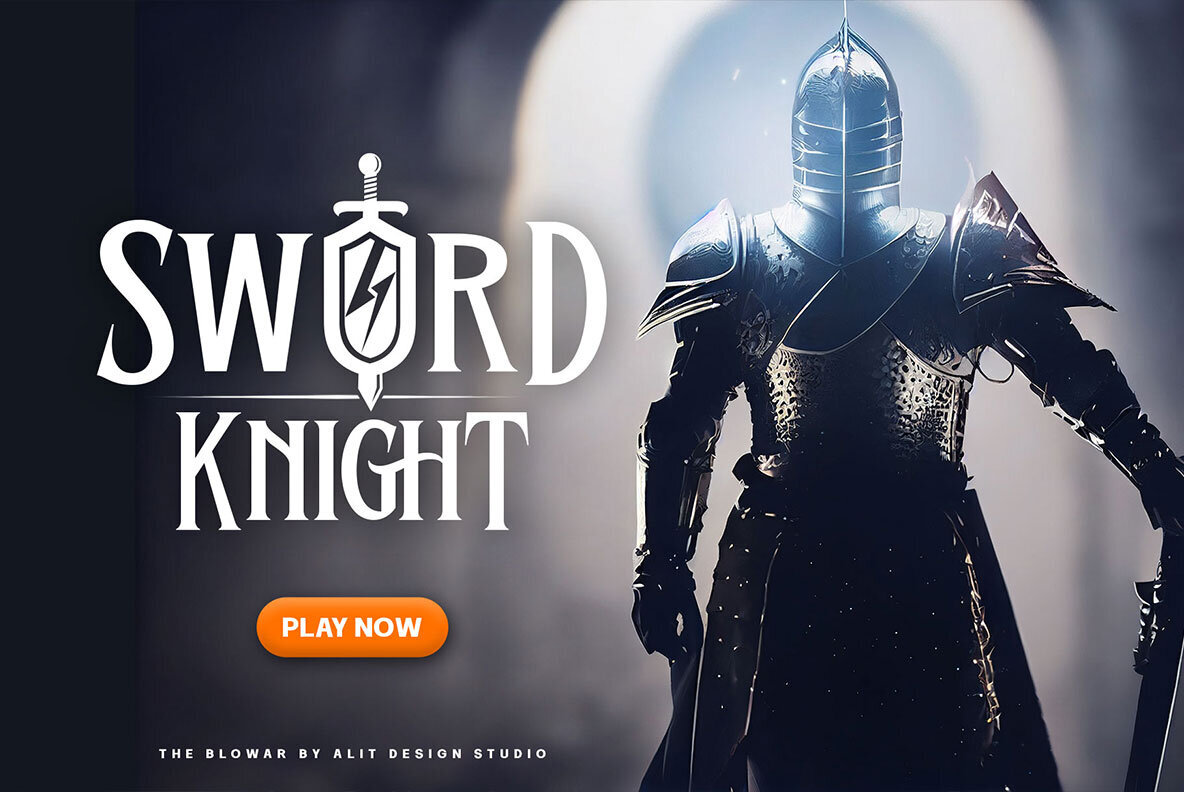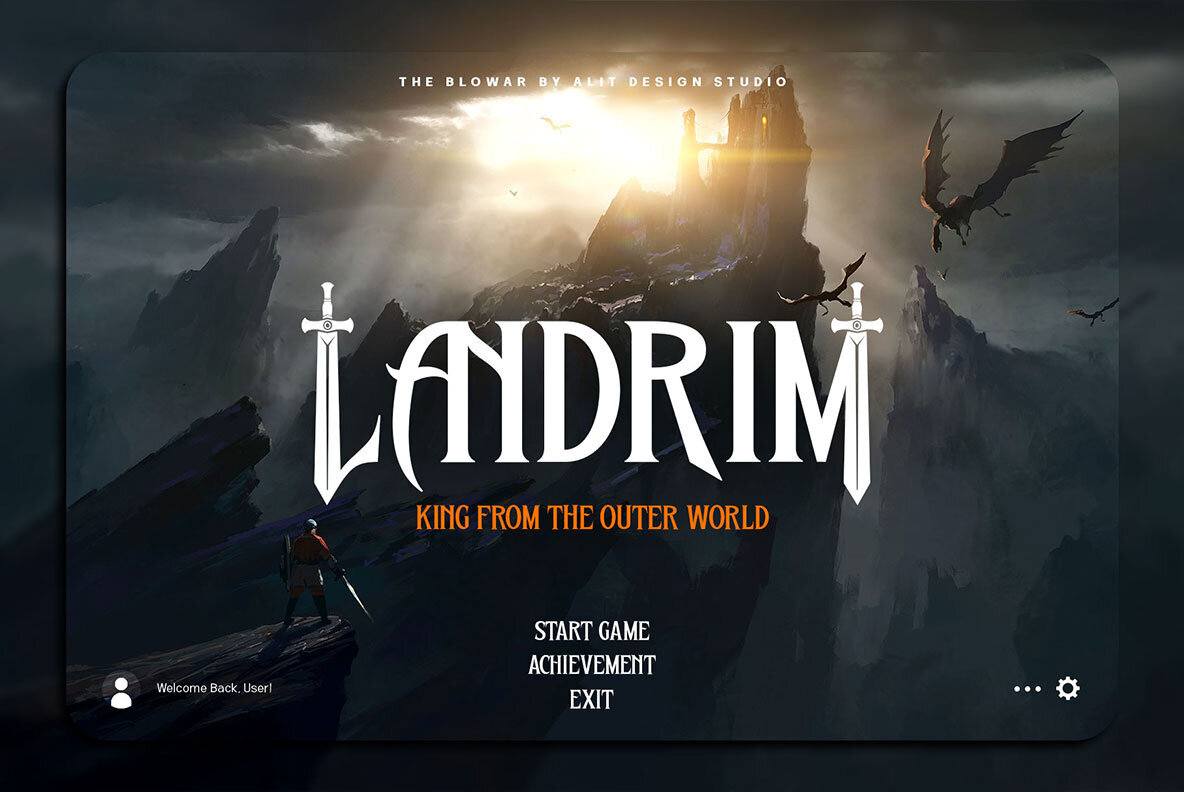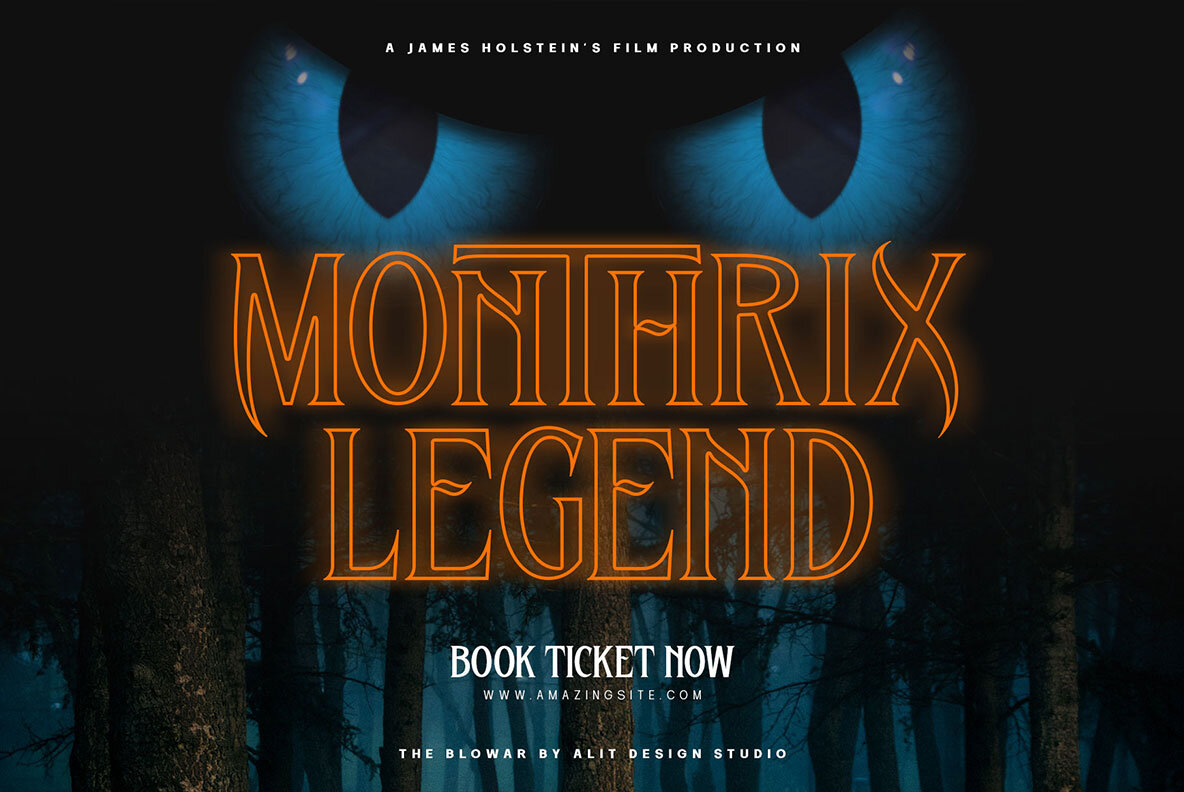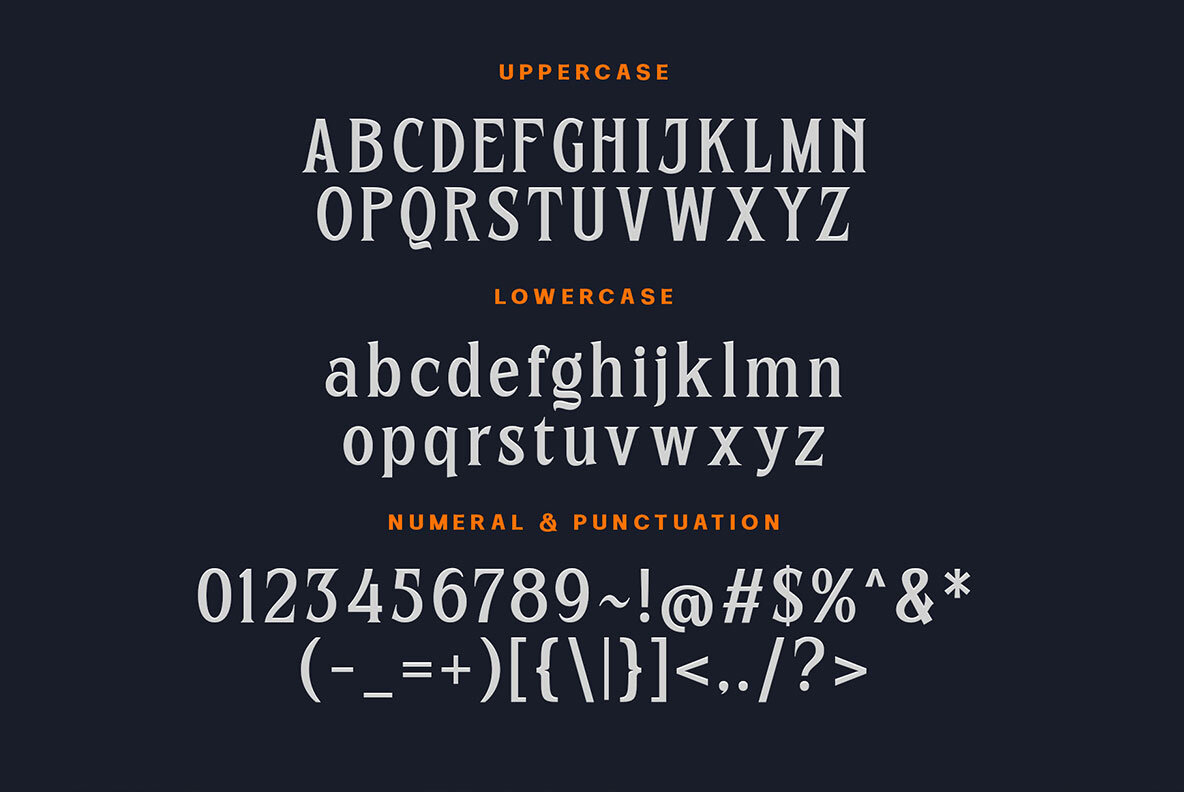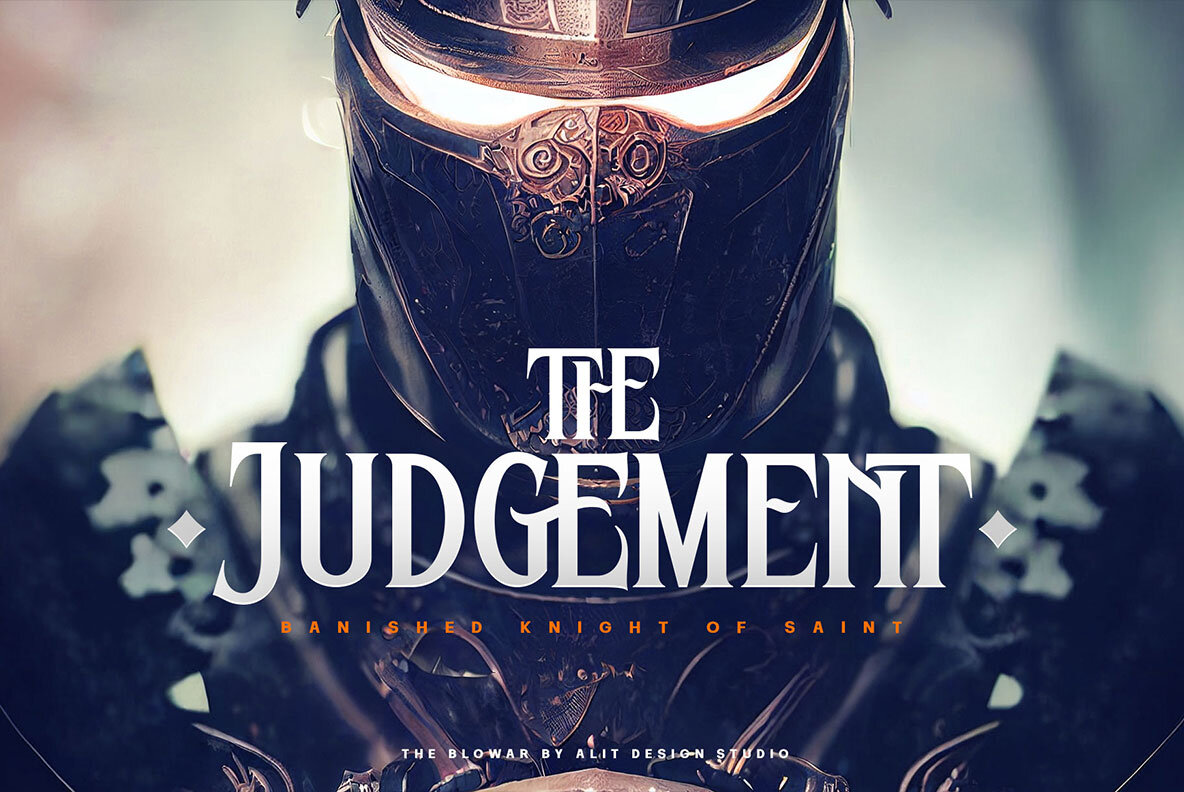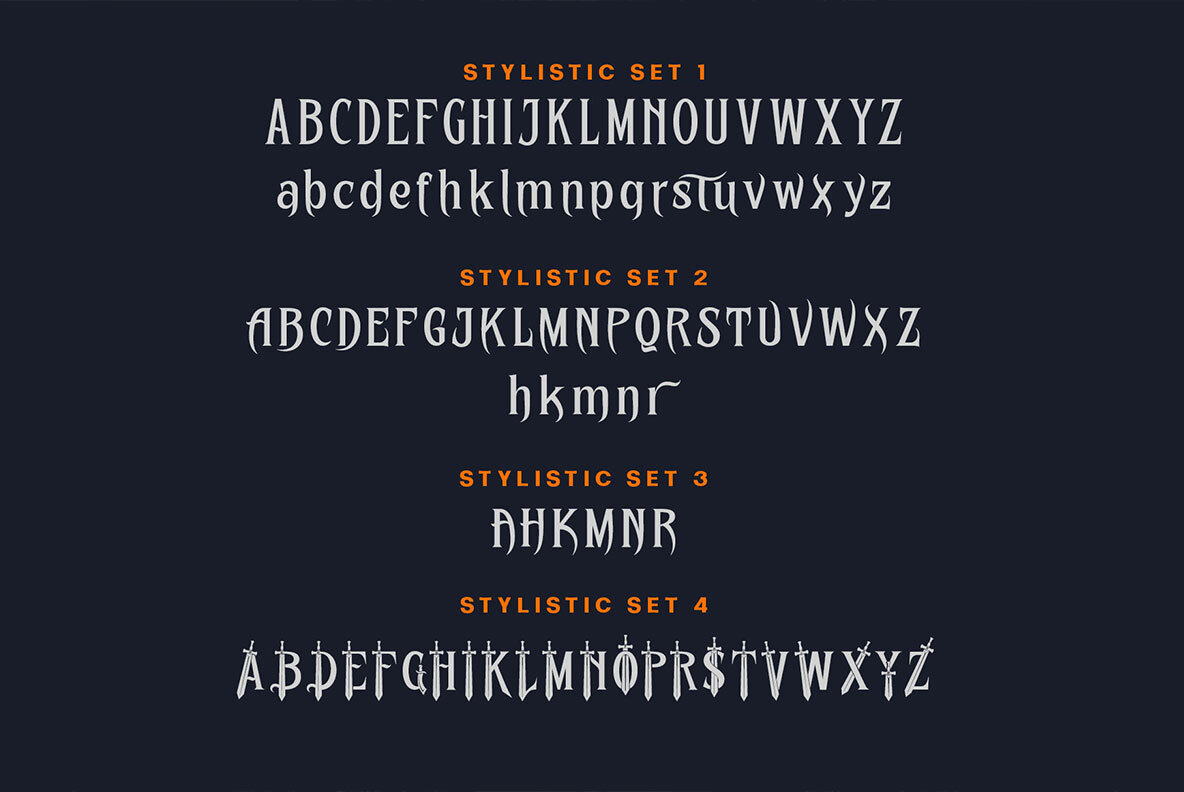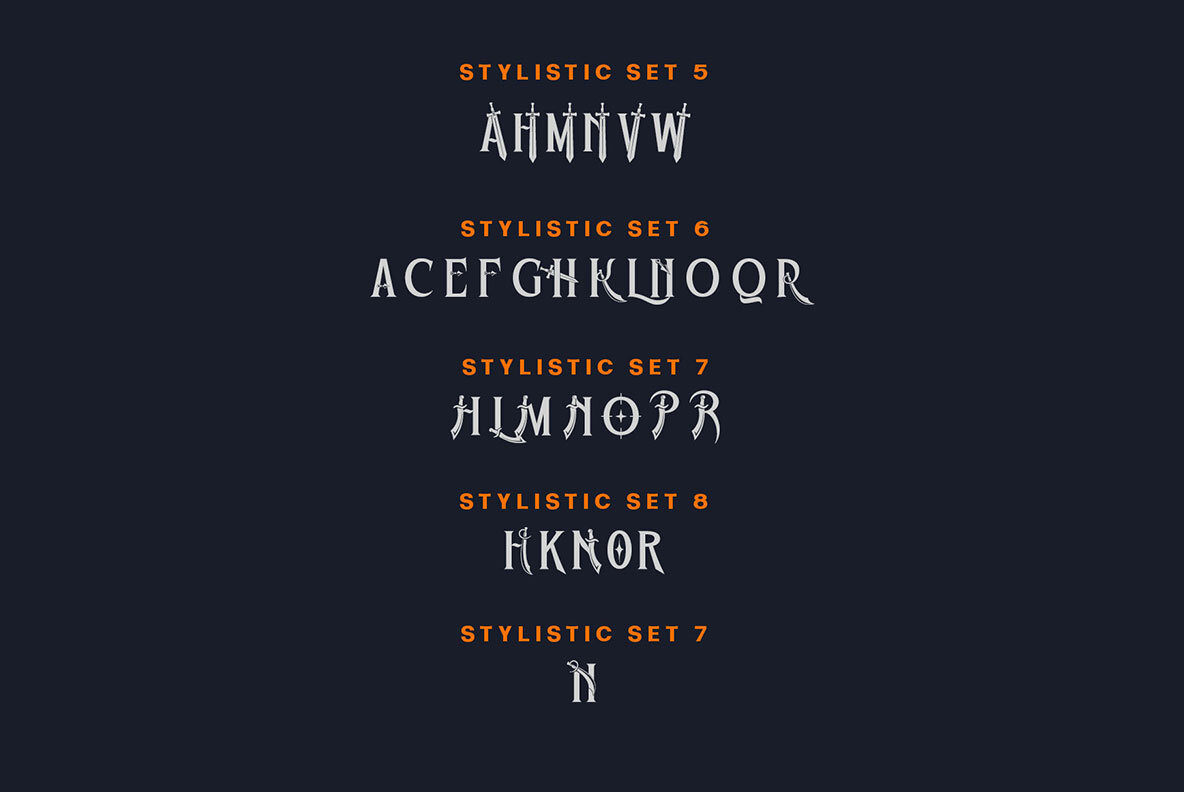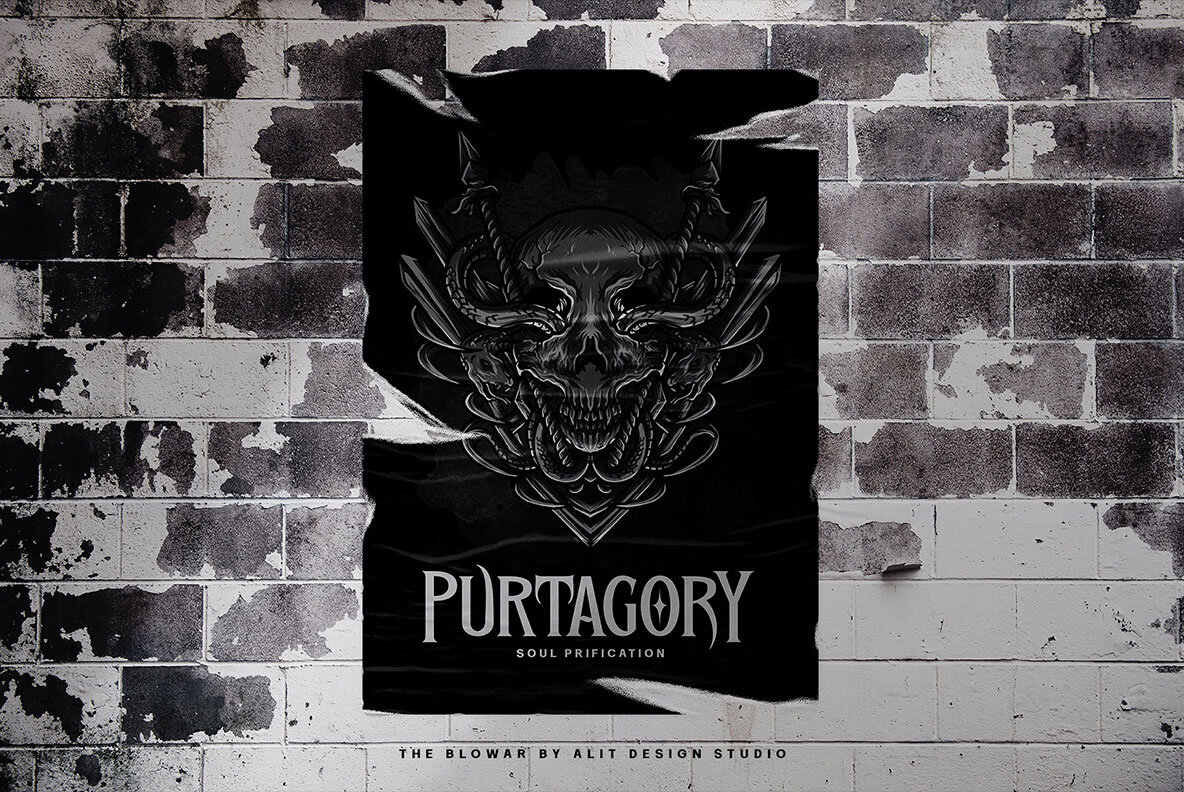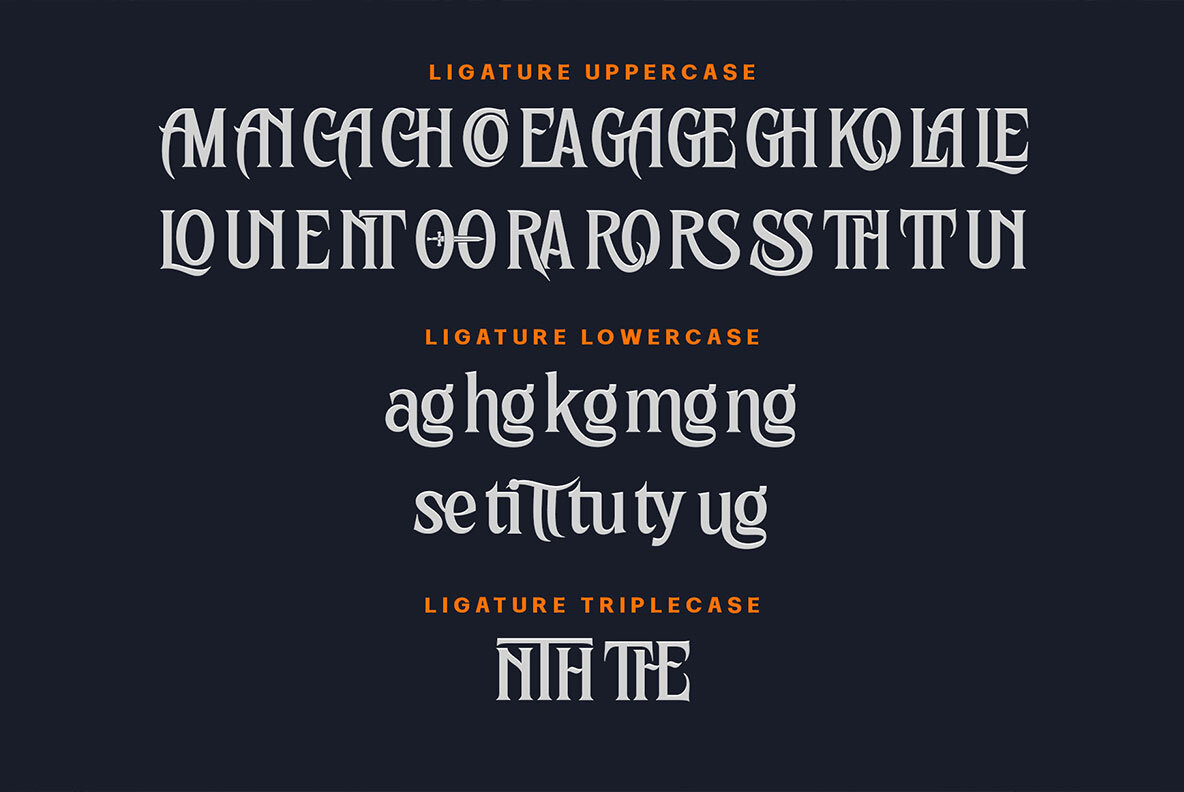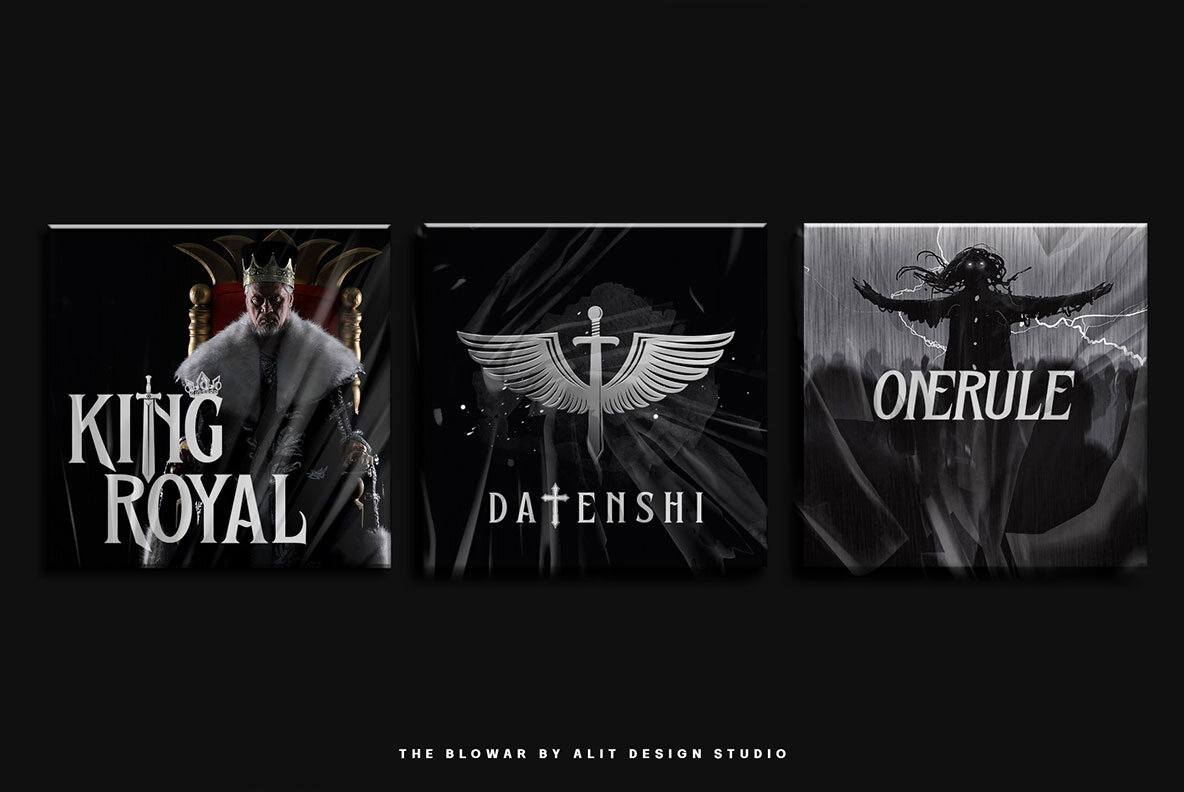
The Blowar 1
Unleash your inner hero with the Blowar font! Inspired by action movie posters and Roman-era themes, it's perfect for designing titles, logos or t-shirts that convey a sense of boldness. Combining its swashes and symbols to create dynamic designs has never been easier - thanks in part to Unicode support. So what are you waiting for? Get ready for battle (or design projects) with this heroic typeface today!